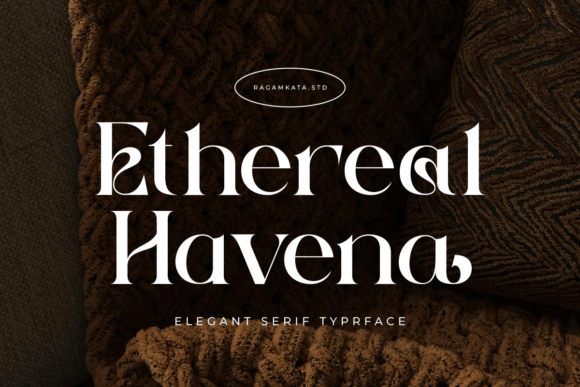
Ethereal Havena - Dreamy Script Font for Quotes & Invites
Ethereal Havena is a modern serif typeface that balances classic elegance with contemporary style — its delicate serifs, high‑contrast strokes, and carefully crafted ligatures give it a graceful, refined appearance. This font exudes a sense of luxury and sophistication, making it ideal for designs that require a premium, polished look such as editorial layouts, luxury packaging, and boutique branding.
With its refined letterforms and classy styling, Ethereal Havena works beautifully in display contexts — headers, logos, invitations, and decorative text — where you want your typography to make a statement. Its timeless aesthetic combines femininity and elegance with readability, giving your projects an upscale and professional vibe.
- Graphic designers working on luxury branding, fashion, lifestyle, or editorial projects
- Crafters and boutique‑brand owners creating packaging, labels, boutique product branding, or luxury‑style printables
- Designers of wedding invitations, greeting cards, stationery, or high‑end print/digital collaterals
- Social media or digital content creators wanting elegant, refined fonts for headers, quotes, banners, or digital art
- Ecommerce / Shopify store owners wanting a classy serif for logos, packaging mockups, or brand identity presentations
- Luxury brand logos, wordmarks, and brand identity materials
- Product packaging and labels — especially for boutique, beauty, fashion or lifestyle products
- Invitations, greeting cards, wedding stationery, save‑the‑date cards
- Editorial layouts, magazine covers, lifestyle editorial spreads
- Social media graphics, web banners, blog graphics, and digital ads
- Posters, wall art, quote prints, and decorative typography pieces
- Complete character set including uppercase, lowercase, numerals, punctuation, accented characters — suitable for many languages
- Elegant serif with ligatures and alternate glyphs — ideal for decorative and branding use
- Elegant, refined serif style — perfect for luxury, fashion, boutique, and editorial aesthetics
- Versatile — works across branding, print, packaging, editorial, web, and digital projects
- Includes ligatures and alternate glyphs — adding sophistication and typographic nuance to your designs
- Great for high‑end, feminine, or premium‑positioned products or brands
Q: Is Ethereal Havena suitable for body text or long paragraphs?
A: Not ideal — Ethereal Havena is best for display use (headings, logos, packaging, invitations) where its elegant serif and ligatures shine. For long body text, a simpler serif or sans‑serif is usually more readable. -
| Feature | Ethereal Havena | Generic Clean Serif | Generic Sans‑Serif Display |
| Font Style | Elegant serif with ligatures and high‑contrast strokes | Neutral serif — subtle, classic, minimal ornament | Sans‑serif — clean, modern, minimal, no serif or ornament |
| Best Use | Luxury branding, invitations, packaging, editorial headlines, decorative text | Body text, books, long‑form content, classic print layouts | Web headings, modern branding, UI, minimalist design, clean headings |
| Readability (small text / body) | Moderate — best at larger/display sizes for stylistic use | High — suitable for extended text and print readability | High — optimized for readability on screen and web interfaces |
| Visual Vibe | Luxury, feminine, classy, refined, elegant | Classic, traditional, understated, readable | Modern, neutral, clean, minimal, versatile |